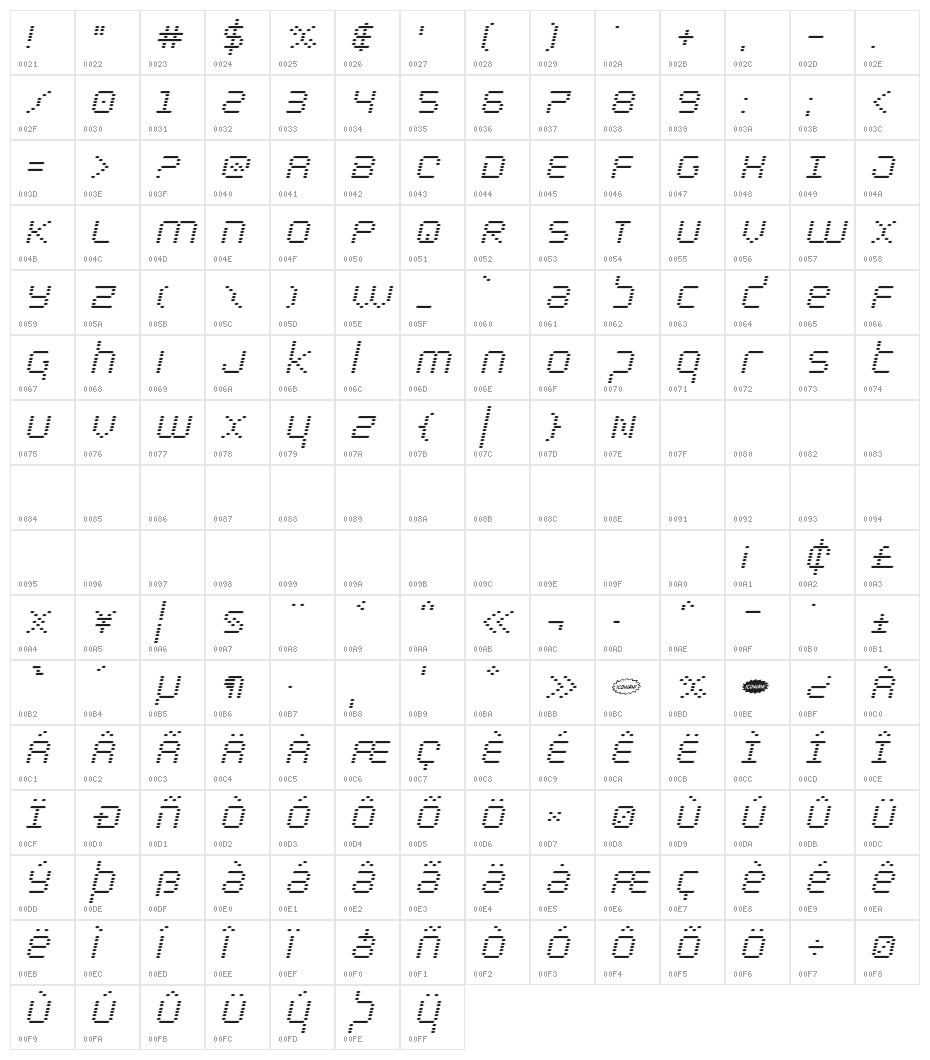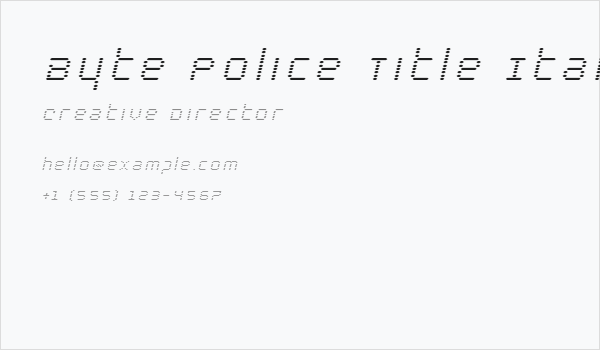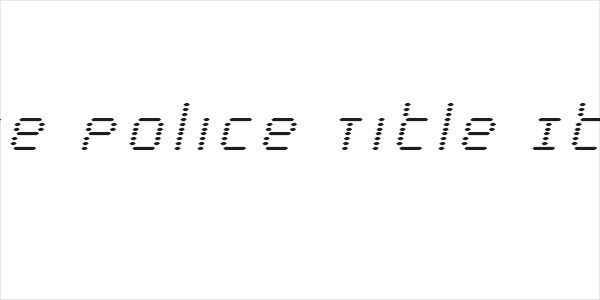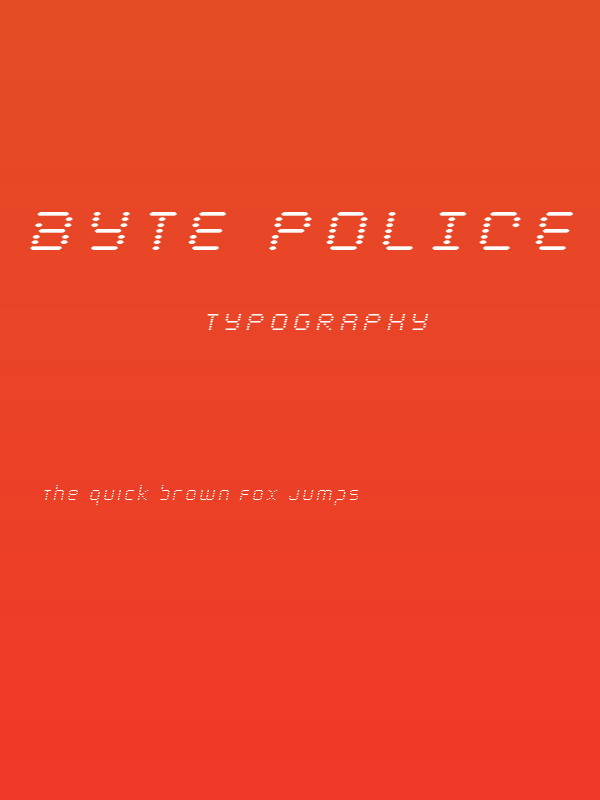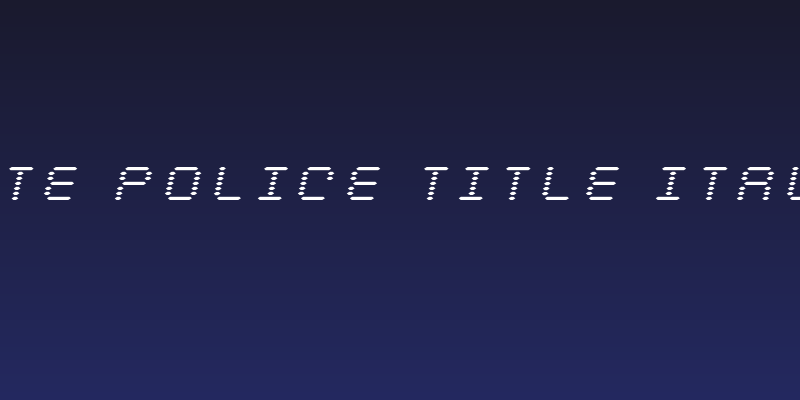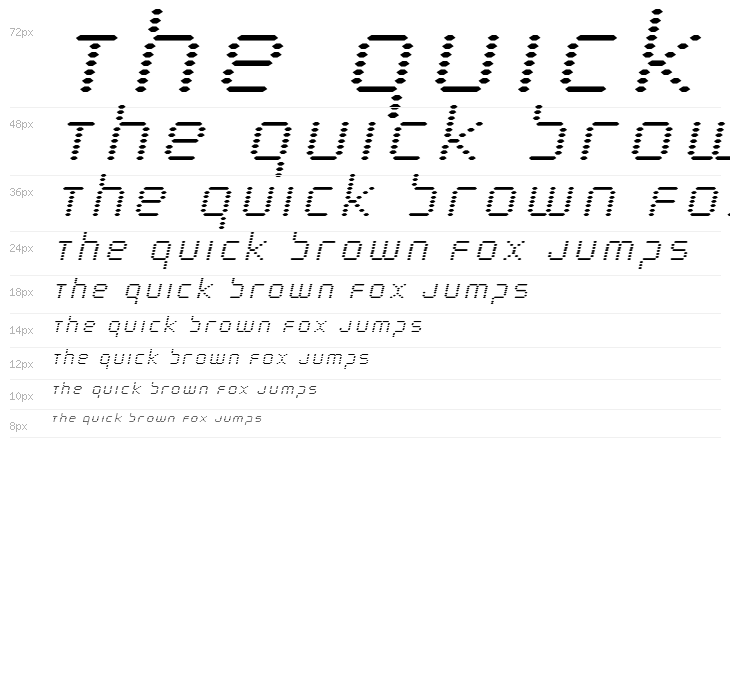
Byte Police Title Italic Font
Byte Police Title Italic Description
This font features a unique dotted design that gives it a digital, futuristic appearance. Each character is composed of evenly spaced dots, creating a sense of rhythm and movement. The italic style adds a dynamic slant, enhancing its modern and tech-inspired aesthetic. The font maintains consistent spacing and alignment, ensuring readability while retaining its distinctive look. It is particularly suitable for projects that require a digital or technological theme, such as software interfaces, tech branding, or digital art. The combination of its dotted structure and italic slant makes it stand out as a decorative yet functional typeface.
| Proposed Projects | Ideal for tech branding, digital art, software interfaces, and futuristic designs. |